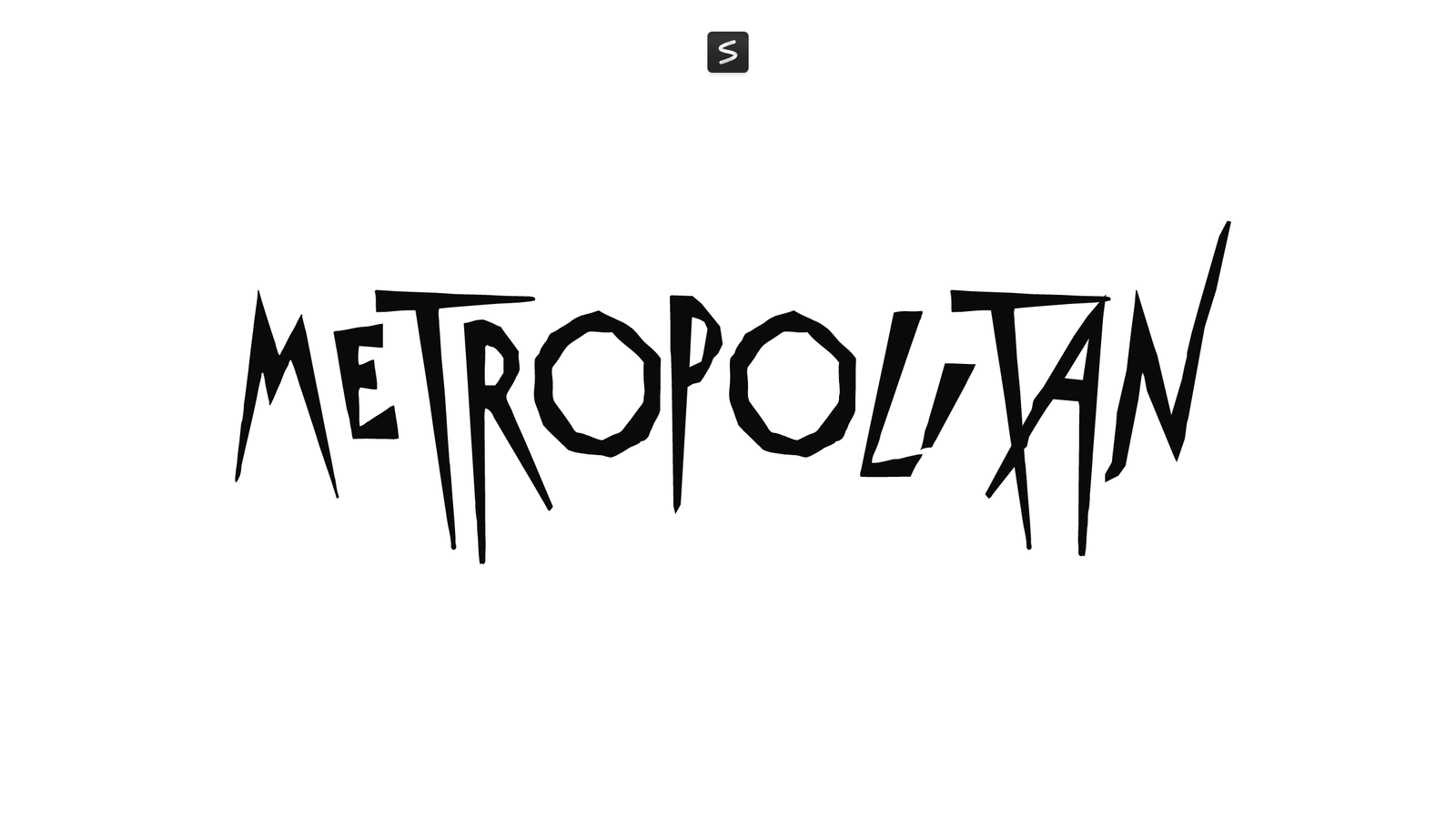
Metropolitan is a distorted display font created by Empire of Dust. Its letterforms are deliberately warped and layered, with a busy, fragmented quality that gives text a sense of movement and visual complexity. The overlapping strokes and irregular edges create an urban, almost glitchy aesthetic that feels more visual artwork than functional typeface.
The font works best when you want text to function as a graphic element rather than pure legibility. It’s suited for posters, album covers, event flyers, and experimental layouts where the distortion itself becomes part of the design. The layered, compressed quality makes it feel contemporary and a bit chaotic in the best way. Use it in headlines or isolated words rather than body text, and it will add visual intrigue to designs that embrace unconventional typography.